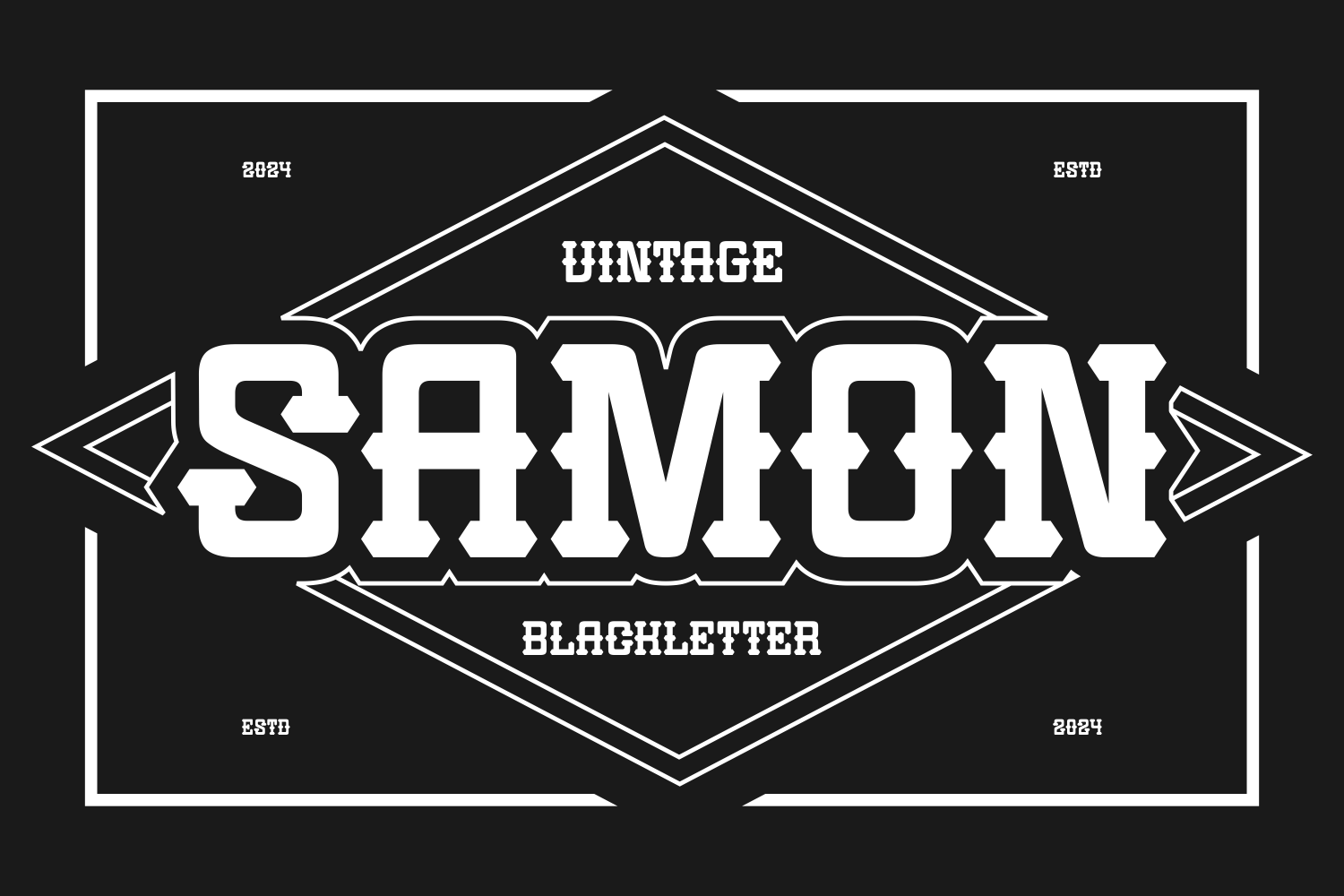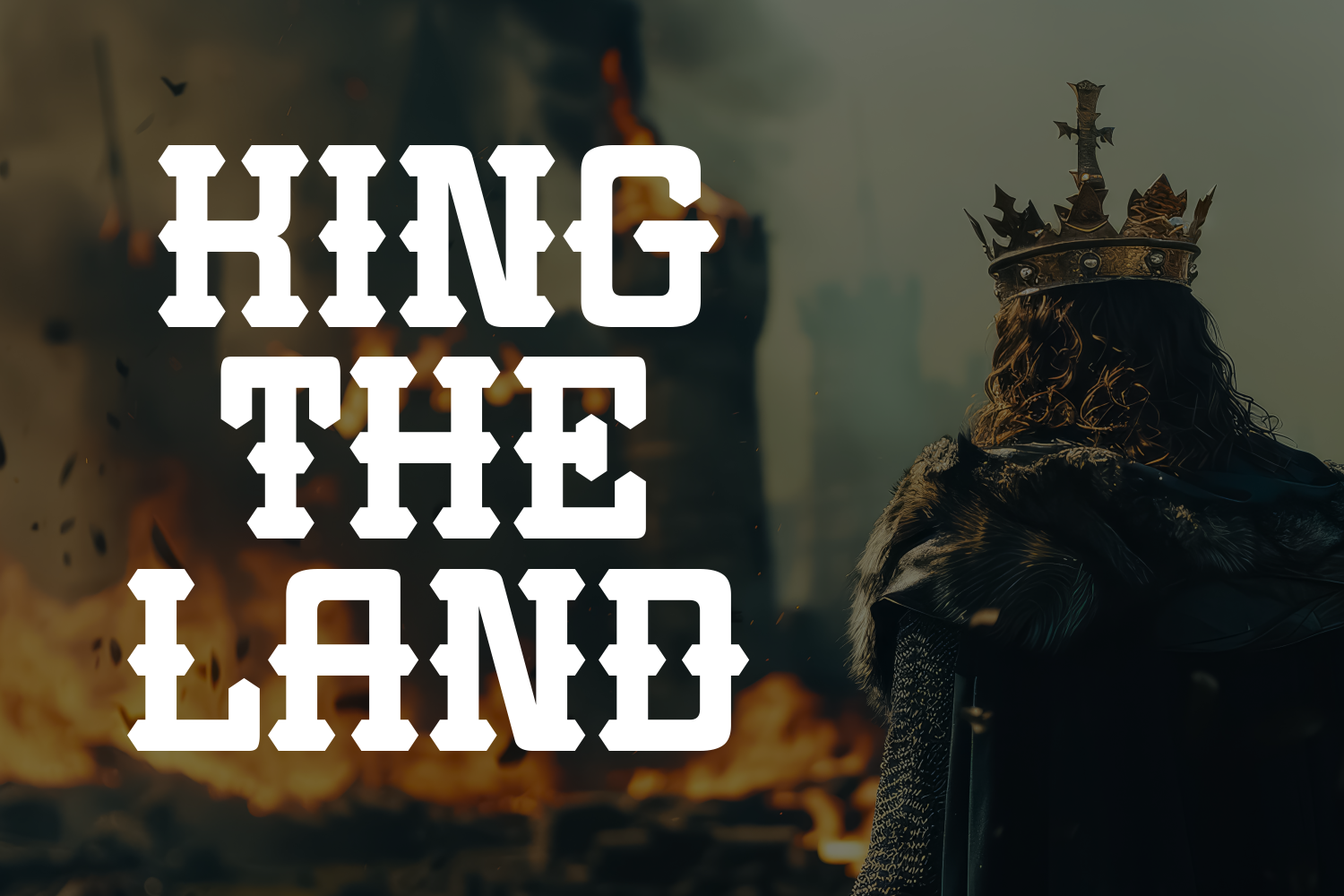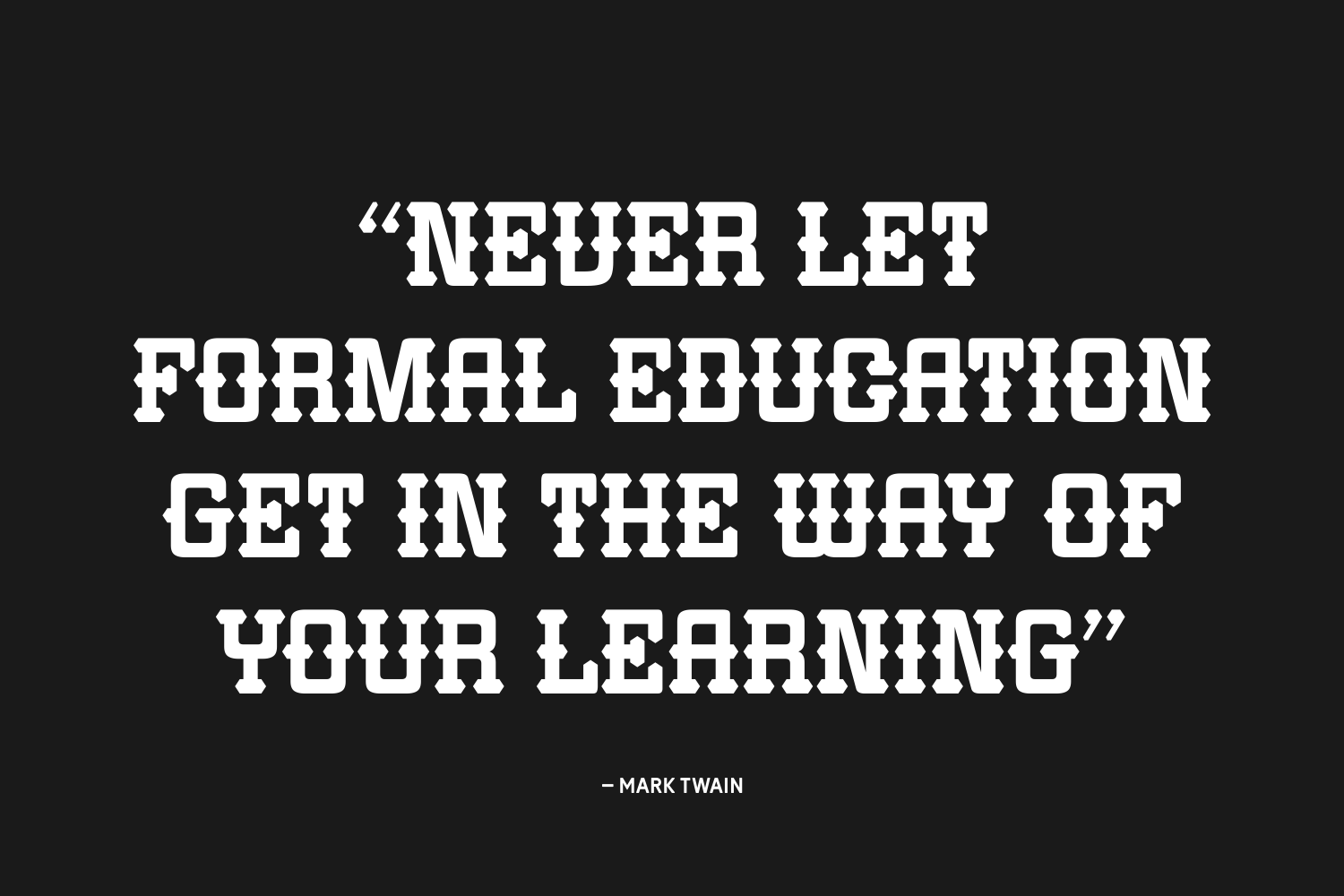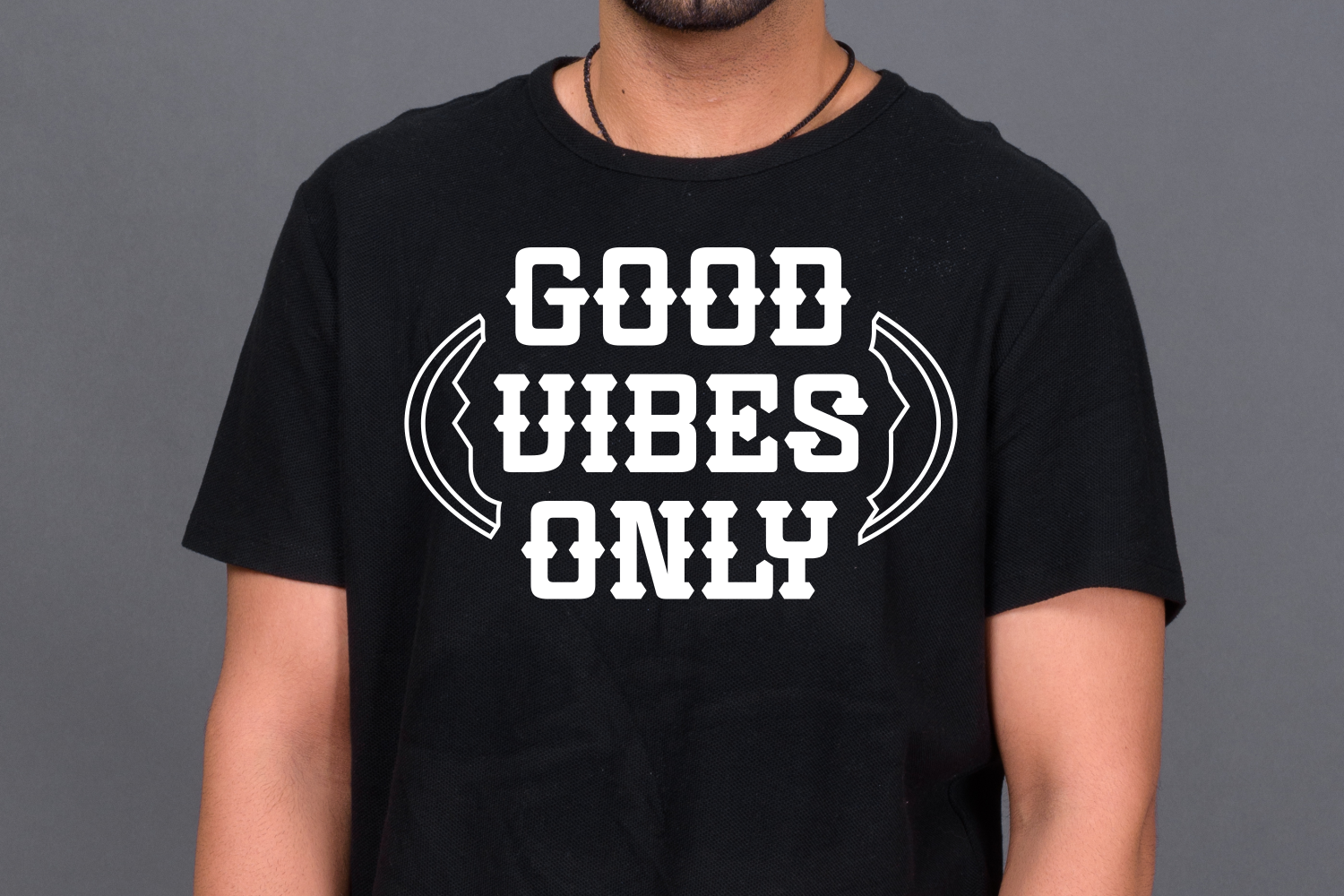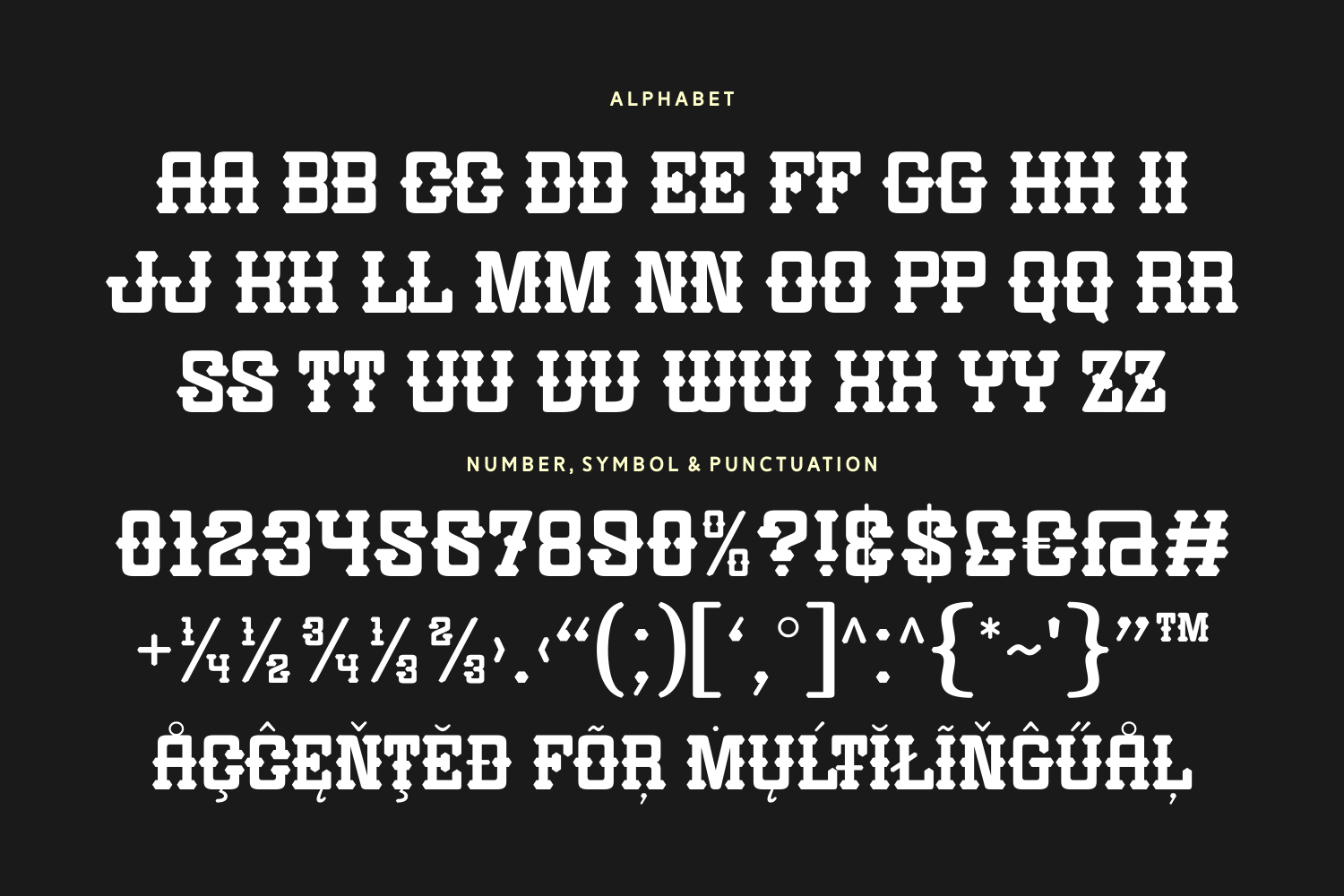
Samon is a bold and striking vintage blackletter font with a strong presence and retro athletic vibes. Featuring blocky characters and clean edges, it's built for standout designs—whether it's logos, sports merchandise, or branding that demands attention. Samon brings a rugged charm that feels both nostalgic and confident. Make your message loud, proud, and impossible to ignore.